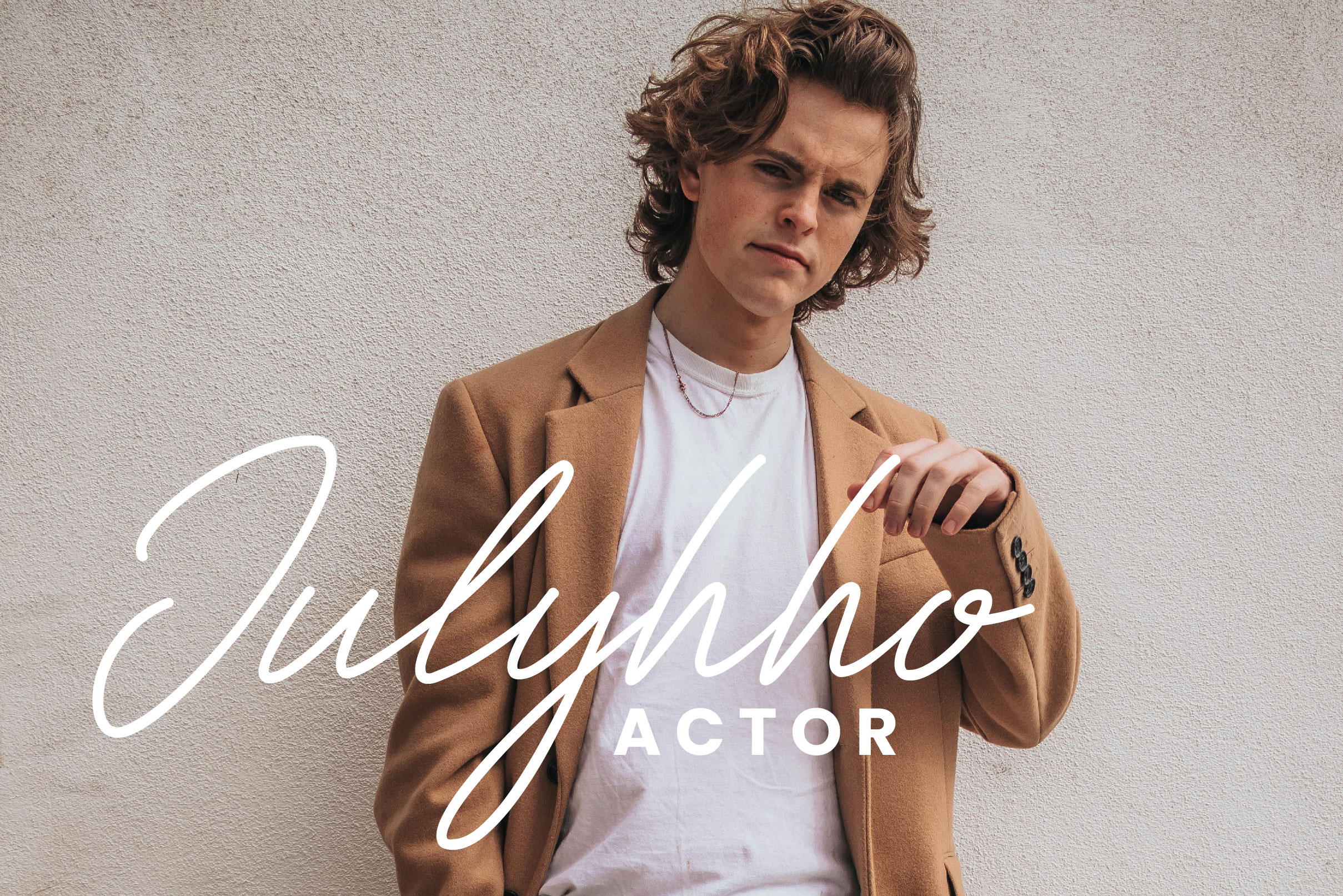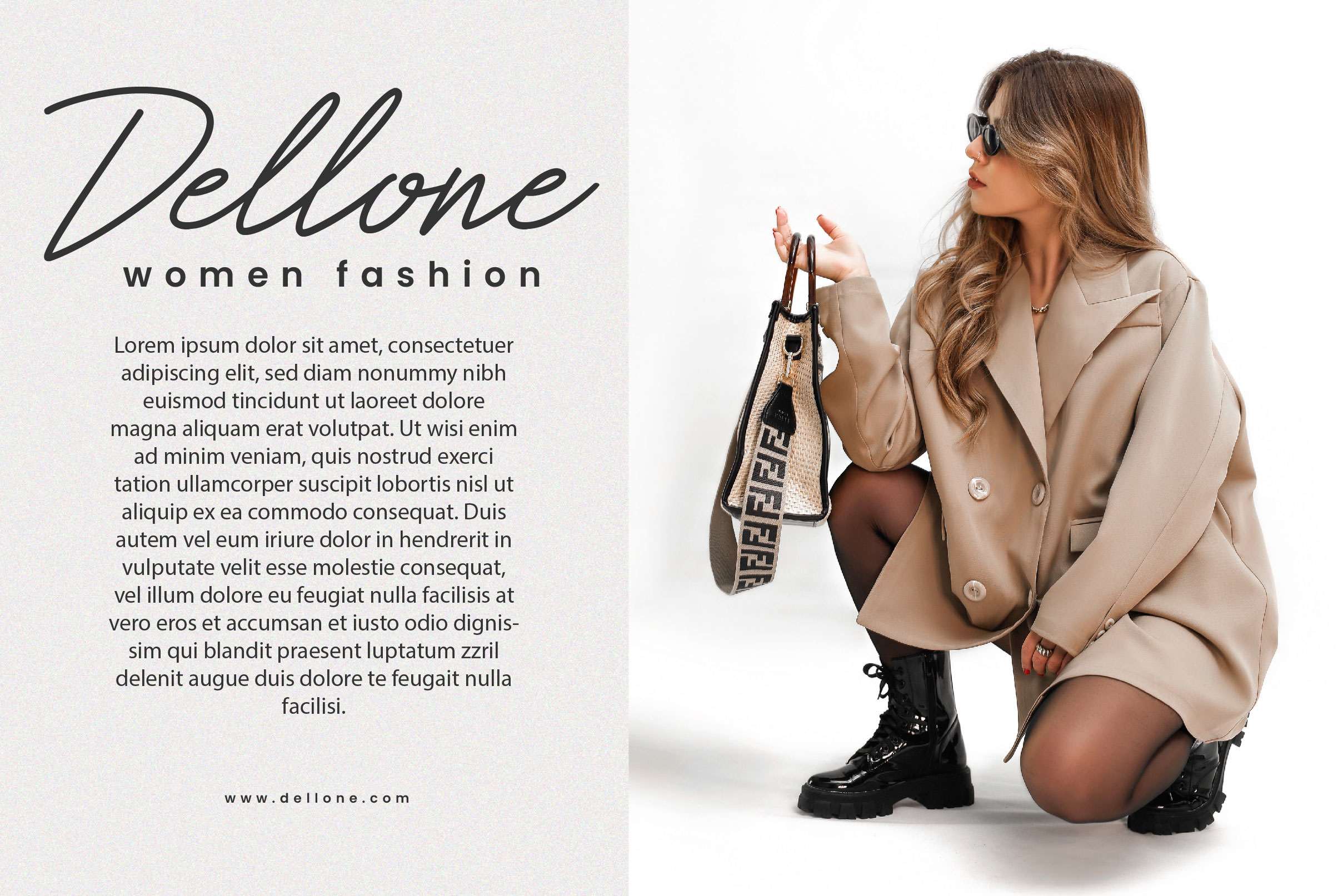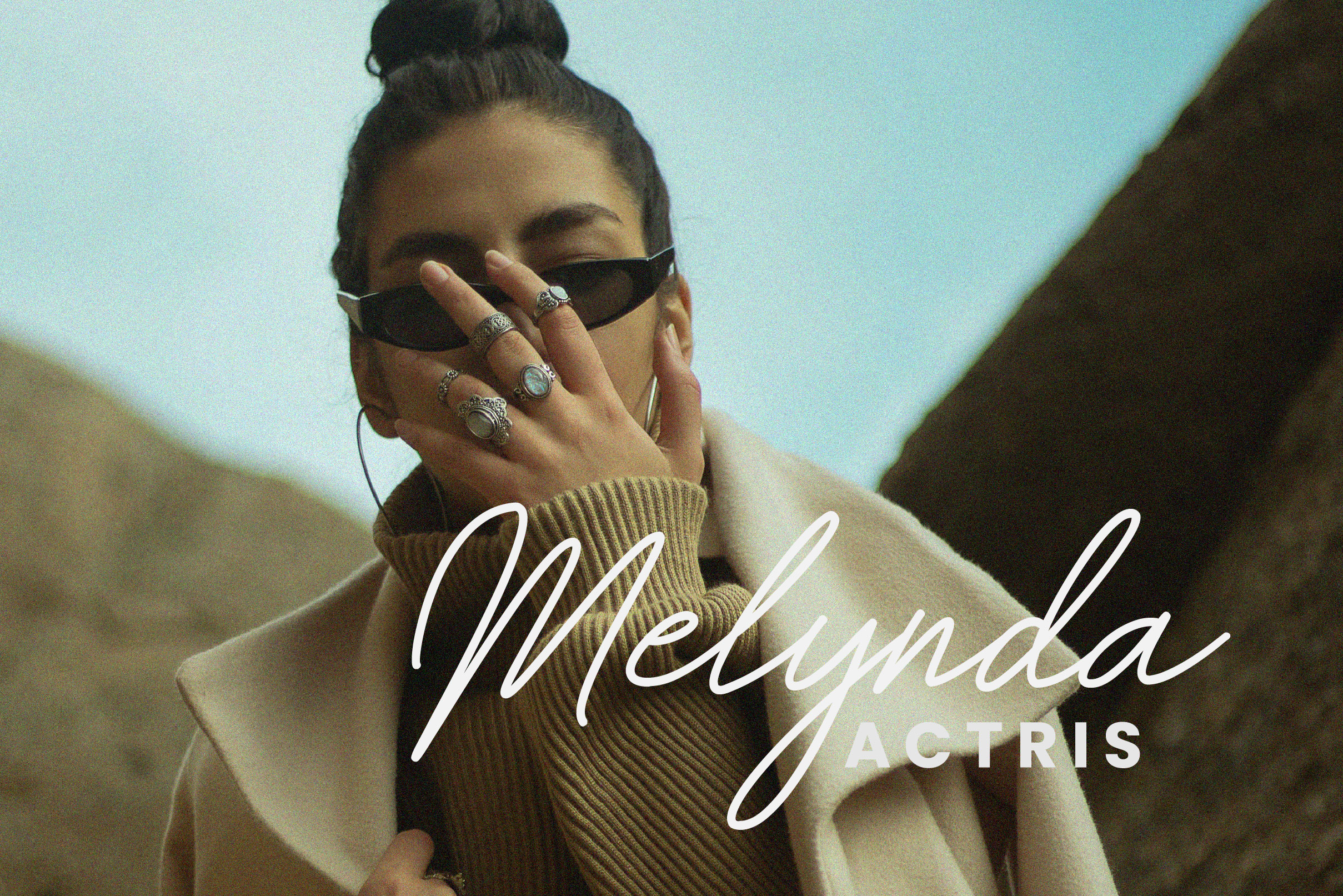
Glamore Typeface
Glamore Handwritten Typeface is a delicate and flowing hand-drawn typeface with characters that dance along the baseline. It will add a luxury spark to any design project that you wish to create!
– Uppercase, Lowercase, Numeral & Punctuation
– Alternate Letters, Ligature & Swash/Tail